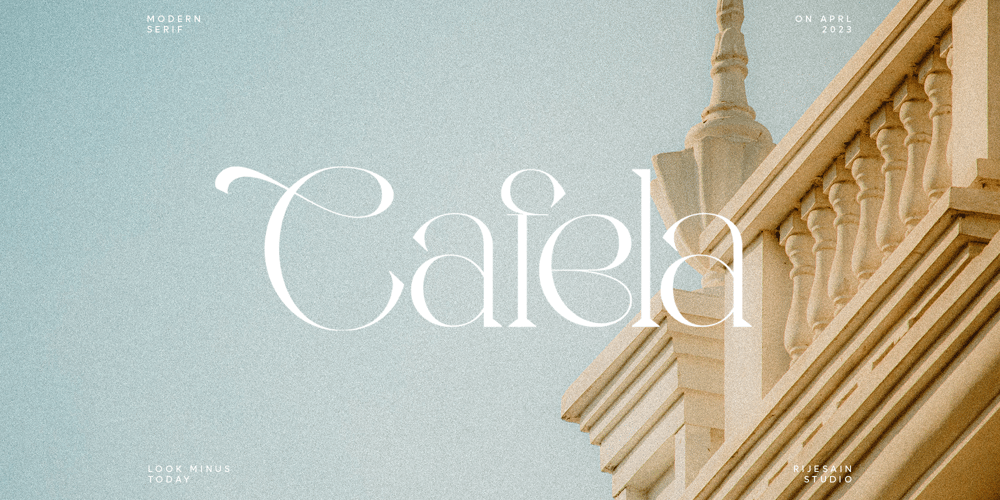
Cafela Font Family was designed by Arif Rijal and published by Look Minus Today. Cafela contains 1 styles and family package options. Introducing Cafela – A Elegant Modern Font With A Ligatures & Alternates by Rijesain x Look minus todayCafela – is a modern and elegant serif font that is perfect for adding a touch of sophistication to your designs. Its sleek and stylish look makes it suitable for a variety of applications, including branding, advertising, and editorial design.Features: Uppercase Lowercase Ligatures & Alternates Numerals & Punctuation Multilingual Thanks & Happy Designing!